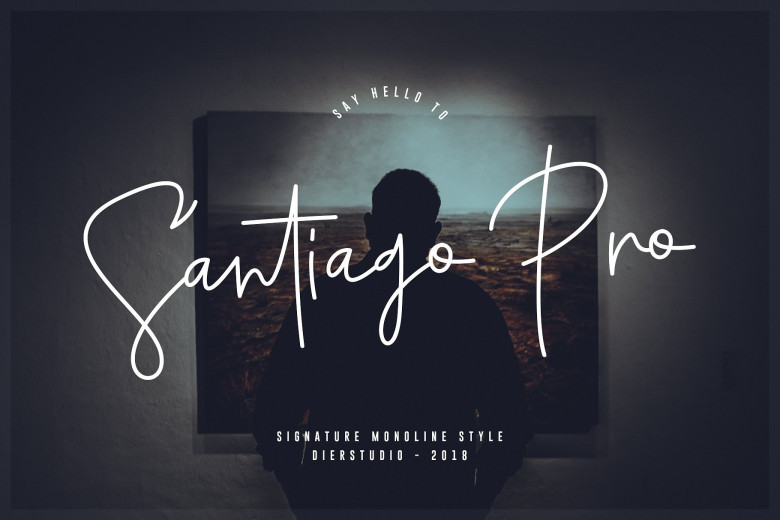
Santiago Pro Signature Font
A new signature monoline style font. Presenting Santiago Pro Font. A font that looks absolutely handwritten and created by hand. Santiago Pro font was created to look as close to a natural handwritten with monoline style, and this include with 23 ligature and some stylishtic set, this make this font perfect for you. recommended to use it Santiago Pro font is to use for any kind of design such as branding projects, logos, wedding designs, social media posts, advertisements, product packaging, product designs, labels, photography, watermarks, invitation, stationery and any projects.